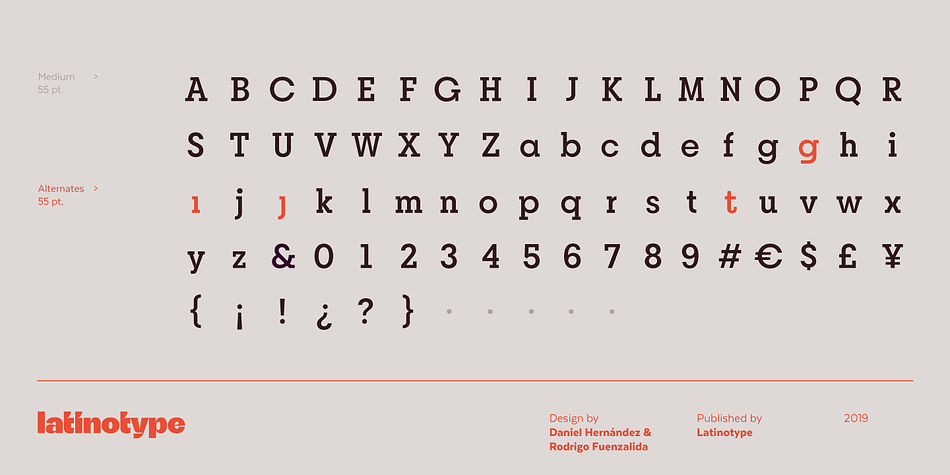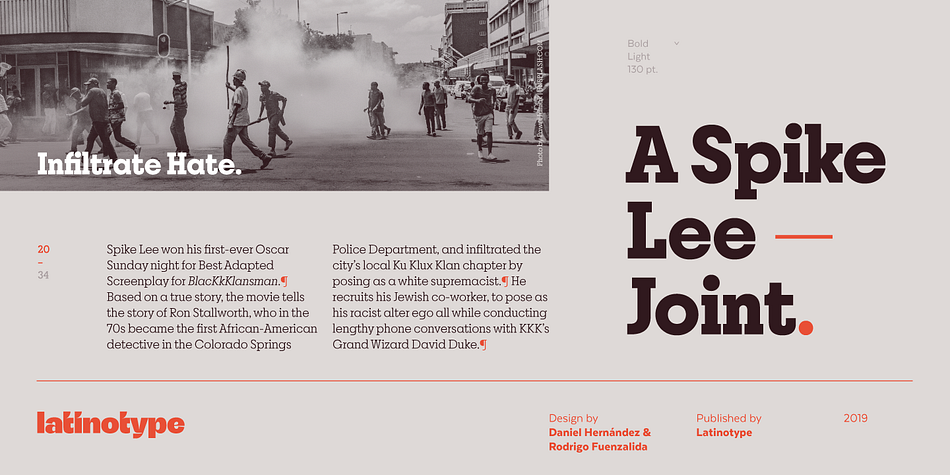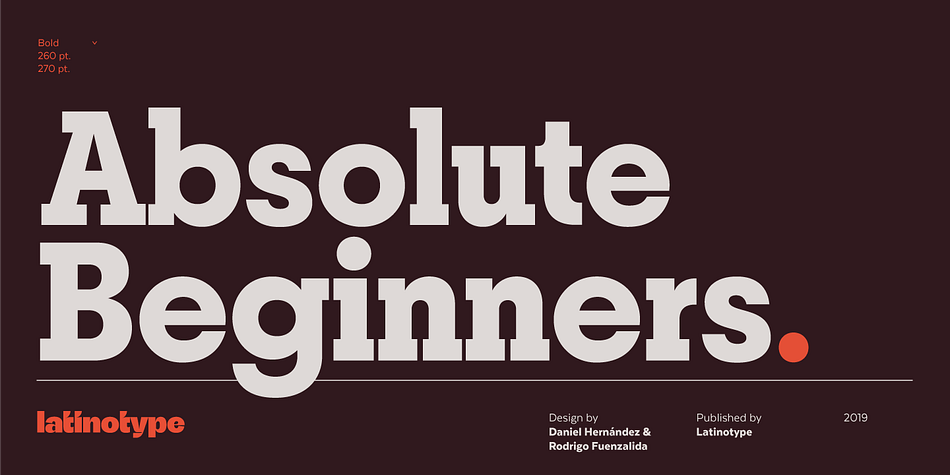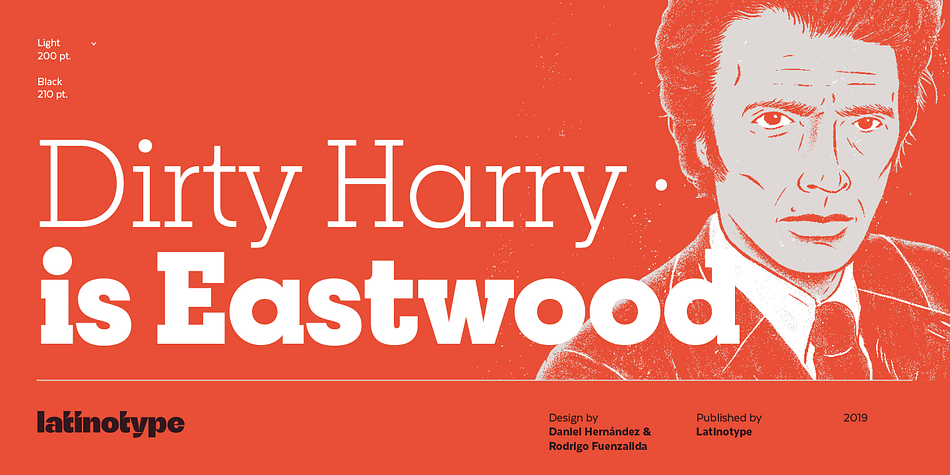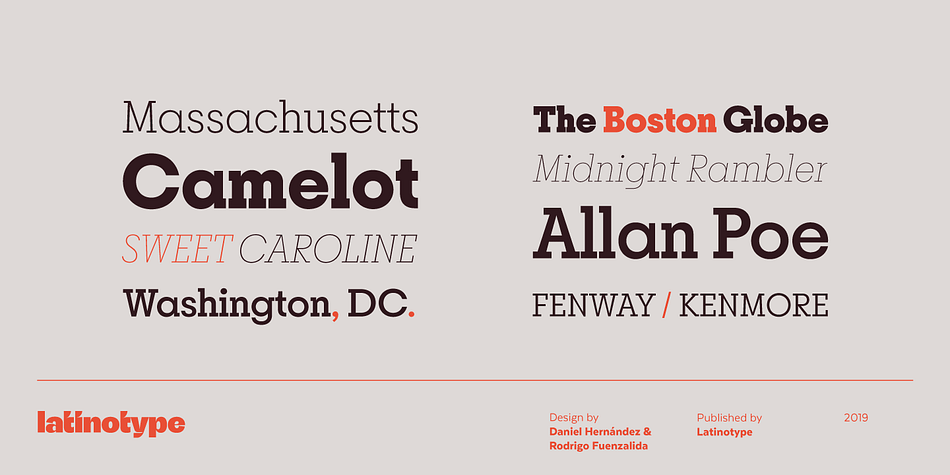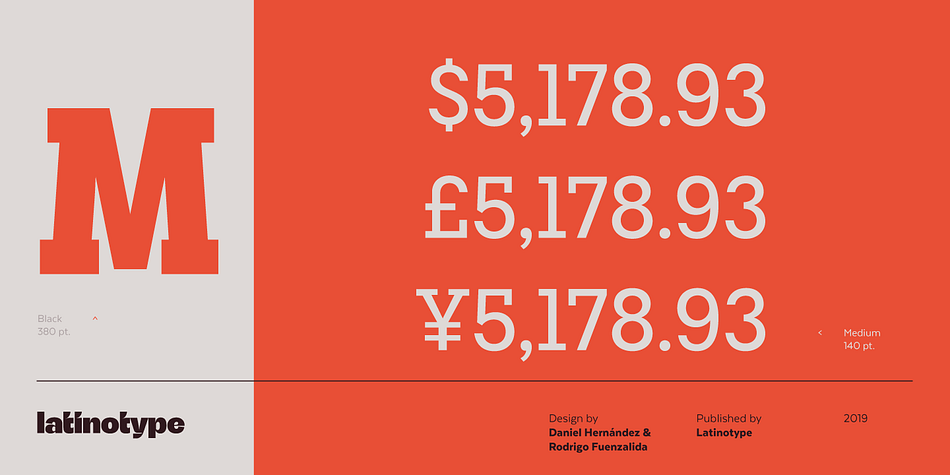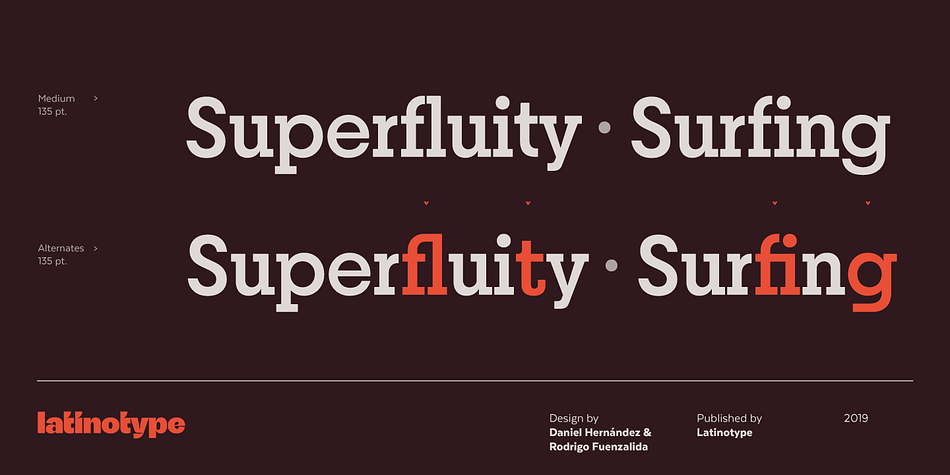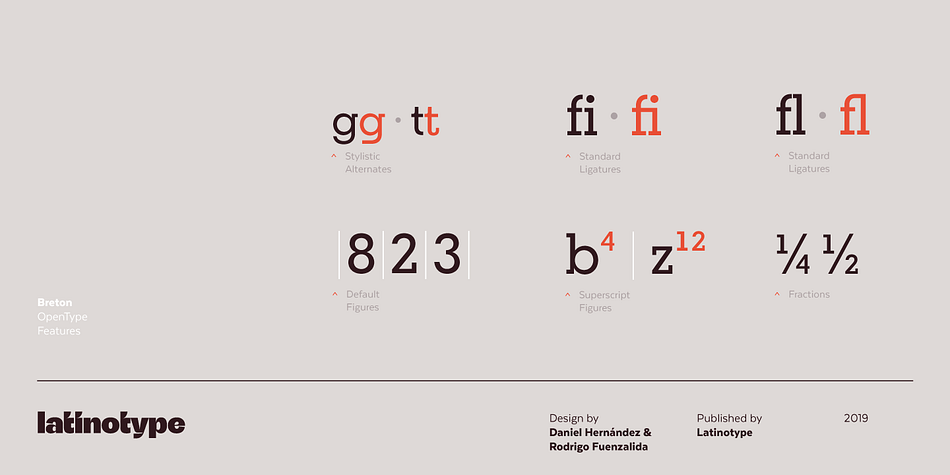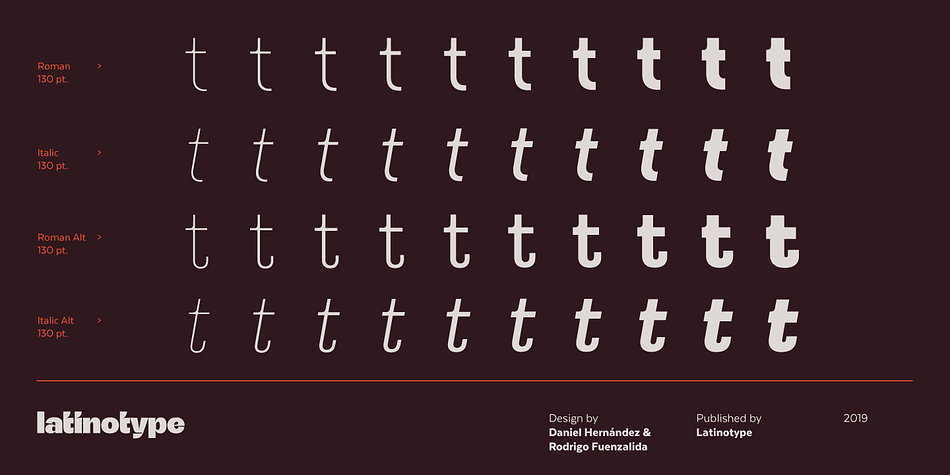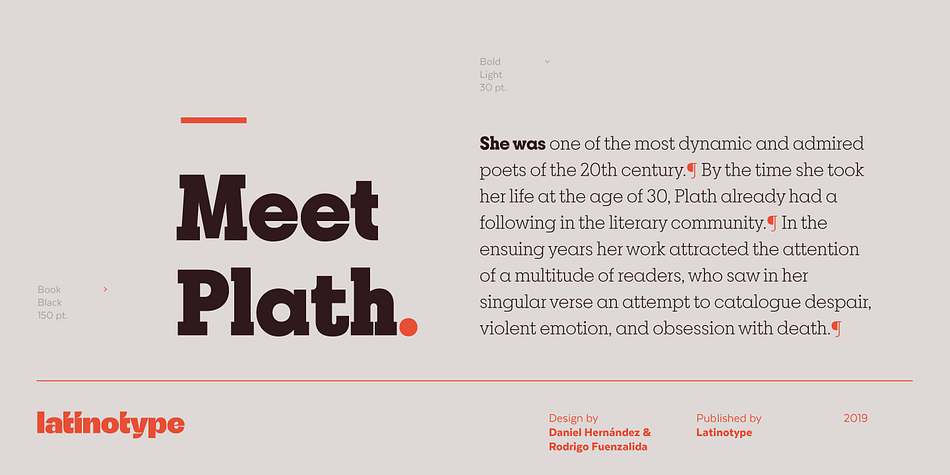
Designed by Daniel Hernández and Rodrigo Fuenzalida, Breton is a slab serif font family. This typeface has twenty styles and was published by Latinotype.
Breton is a geometric slab serif typeface inspired by Boston.
Breton has a strong personality and it is an ideal face for headings and branding design. Its most noticeable characteristic is a great difference of proportions between rounded characters (like “o”, “c” or “e”) and non-rounded ones (like “n”, “m” or “z”). By combining them, you will be able to give your compositions a very unique rhythm.
Each font style comprises 417 characters, which support more than 200 Latin-based languages, as you would expect from Latinotype fonts.
Breton comes in 10 styles, from Hair to Black, and includes matching italics.
Breton was designed by Daniel Hernández and Rodrigo Fuenzalida.